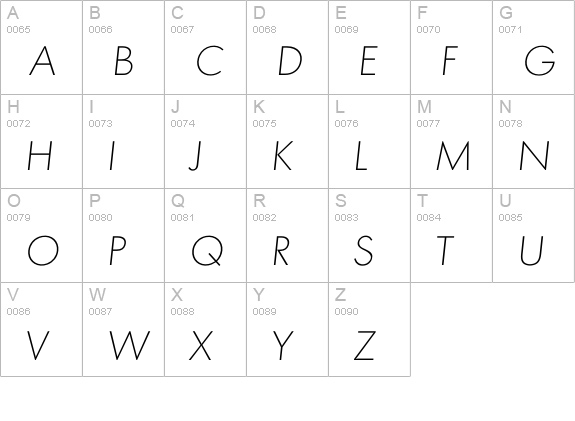
Introducing Imontreal Xlight, a stunning and captivating font that effortlessly combines modern aesthetics with timeless elegance. This font is the perfect choice for those seeking a delicate and refined look in their designs. Imontreal Xlight boasts a delightful balance between thin letterforms and subtle curves, creating a harmonious composition that is pleasing to the eye. Its sleek and slender appearance exudes a sense of sophistication, making it ideal for a range of projects, from branding and packaging to editorial layouts and website designs. With its versatility and versatility, Imontreal Xlight offers endless possibilities for creative expression. Whether you're designing a logo for a high-end fashion brand, crafting an invitation for an elegant event, or creating a sleek and minimalistic website, this font will effortlessly elevate your work to new heights. But what makes Imontreal Xlight even more appealing is that it is available for free! Yes, that's right – this exceptional font can be downloaded at no cost from FontsMarket.com. This means that you can access this exquisite font without any hassle or financial burden, allowing you to bring your creative visions to life without breaking the bank. Imontreal Xlight is a true gem in the world of typography, offering a delicate and refined aesthetic that is both modern and timeless. Don't miss out on the opportunity to enhance your designs with this remarkable font – download Imontreal Xlight for free at FontsMarket.com today and let your creativity soar.